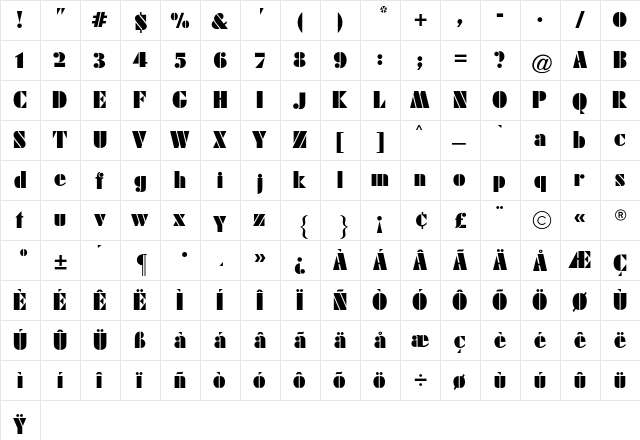
Futura Black CG Regular
Design Context for Futura Black CG Typeface
Futura Black CG channels digital-age aesthetics through its sharp, structured letterforms — ideal for brands that want to signal innovation.